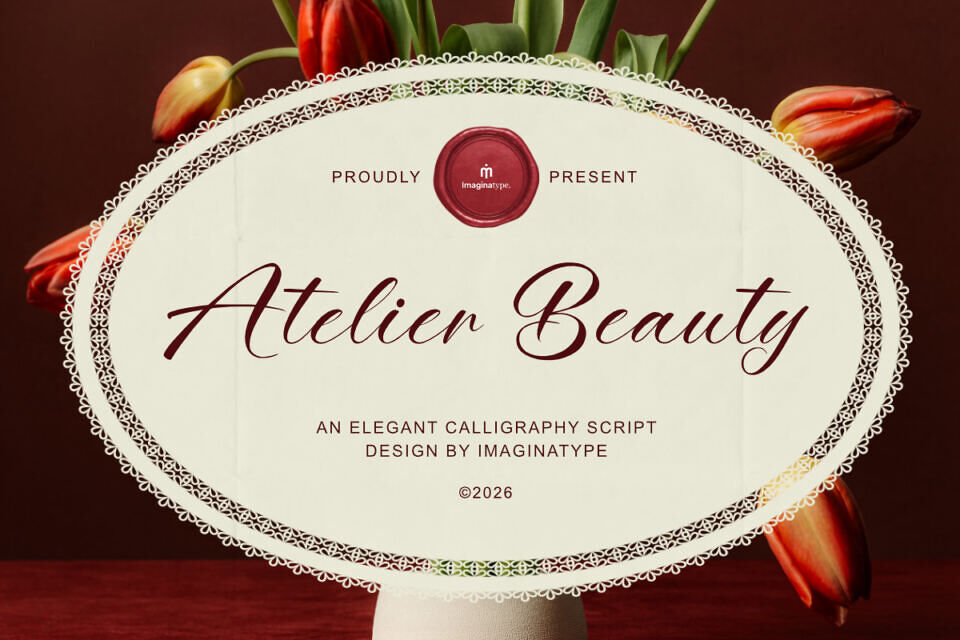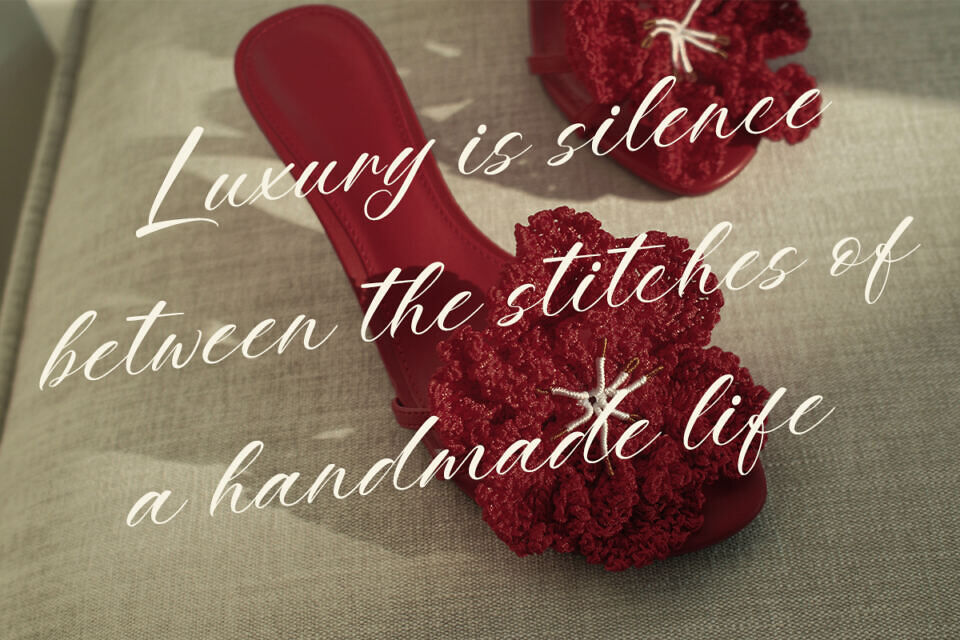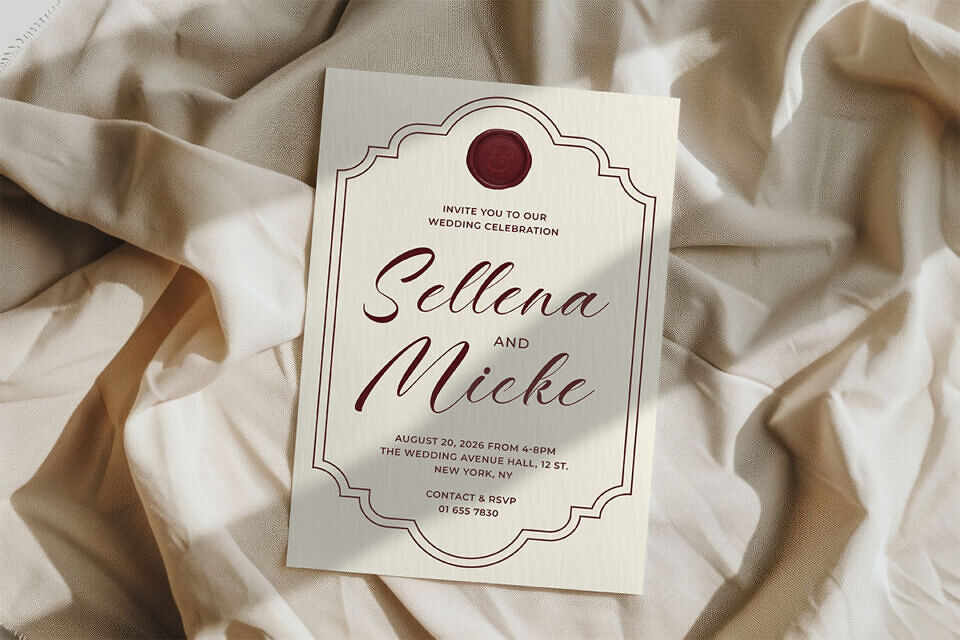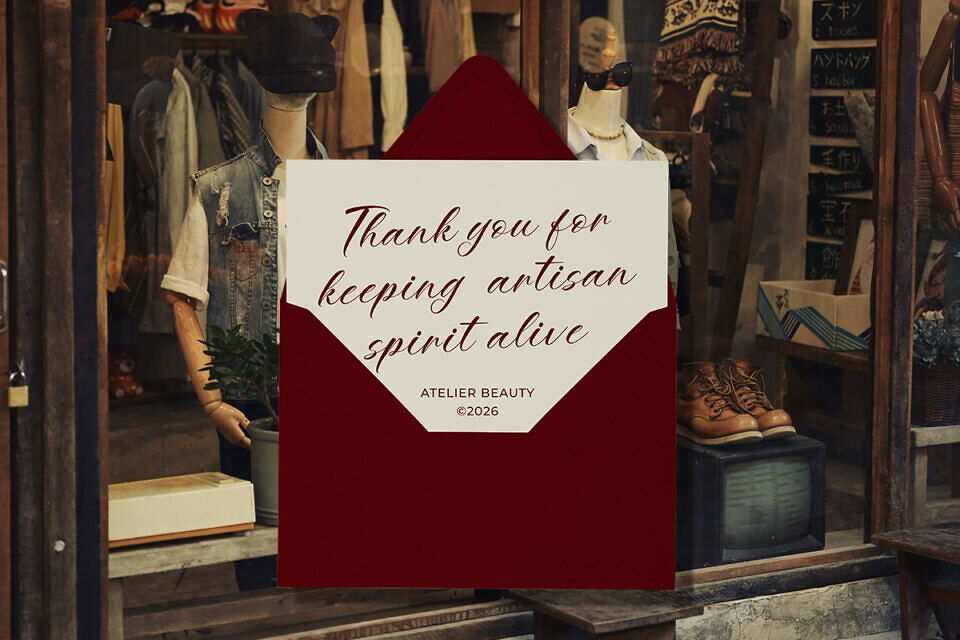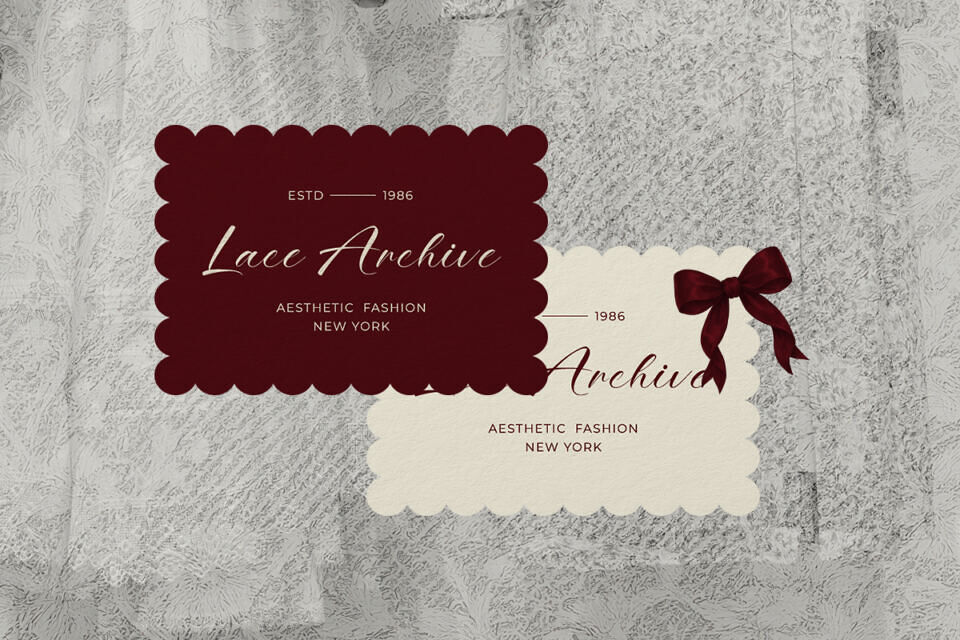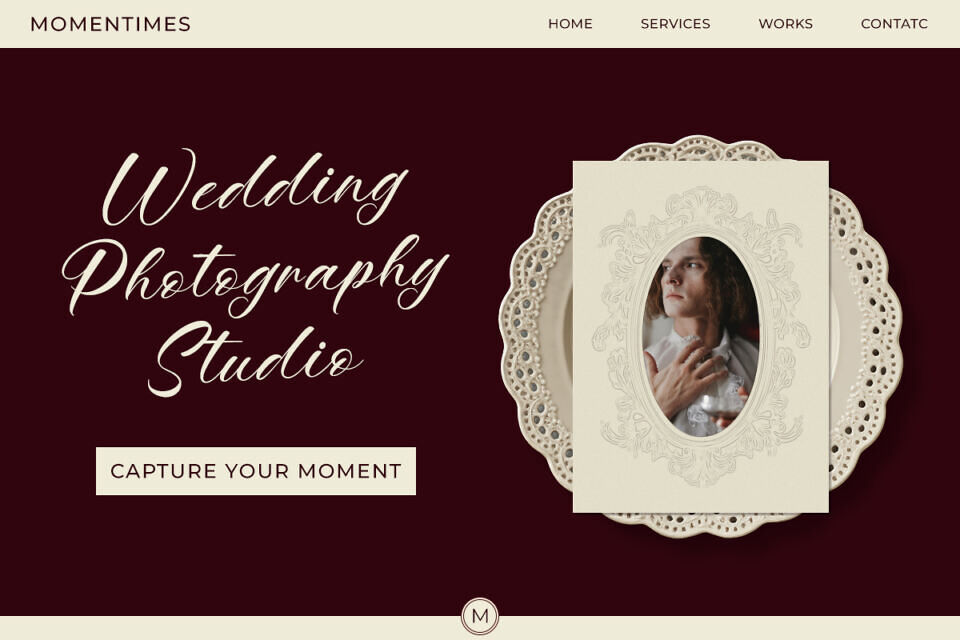
Atelier Beauty Font
Step into a world of timeless elegance with Atelier Beauty, a refined calligraphy script typeface that effortlessly brings a touch of romance and luxury to your creative projects. This elegant script features smooth, flowing lines and bold lettering, giving it a luxurious, handmade look.
The Atelier Beauty font is a stunning display typeface with delicate curves and natural connections, making it perfect for high-end designs that exude sophistication and charm. It’s perfect for wedding invitations, luxury fashion branding, elegant restaurant menus, aesthetic packaging, or any project that requires a classy, handwritten statement.